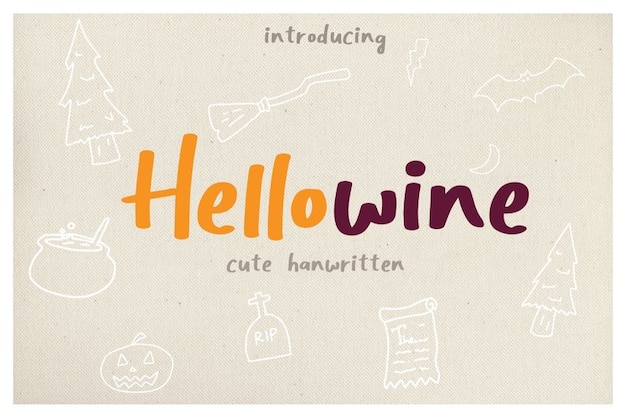
Hellowine Font
Hellowine - Where handwritten charm meets the bold strokes of a brush. This font brings your words to life with a playful yet stylish flair. Whether you're designing wine labels or crafting personalized gifts, Hellowine adds a touch of artistic elegance to every project. Cheers to creativity with Hellowine!